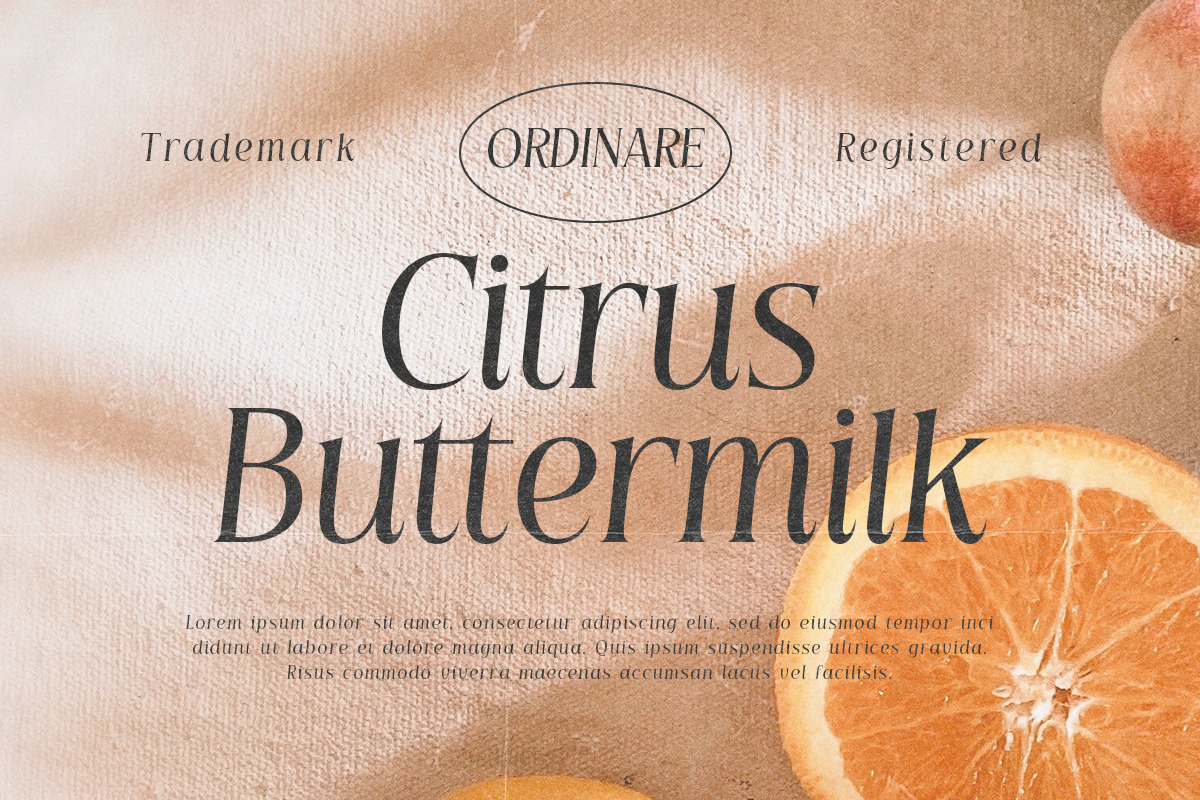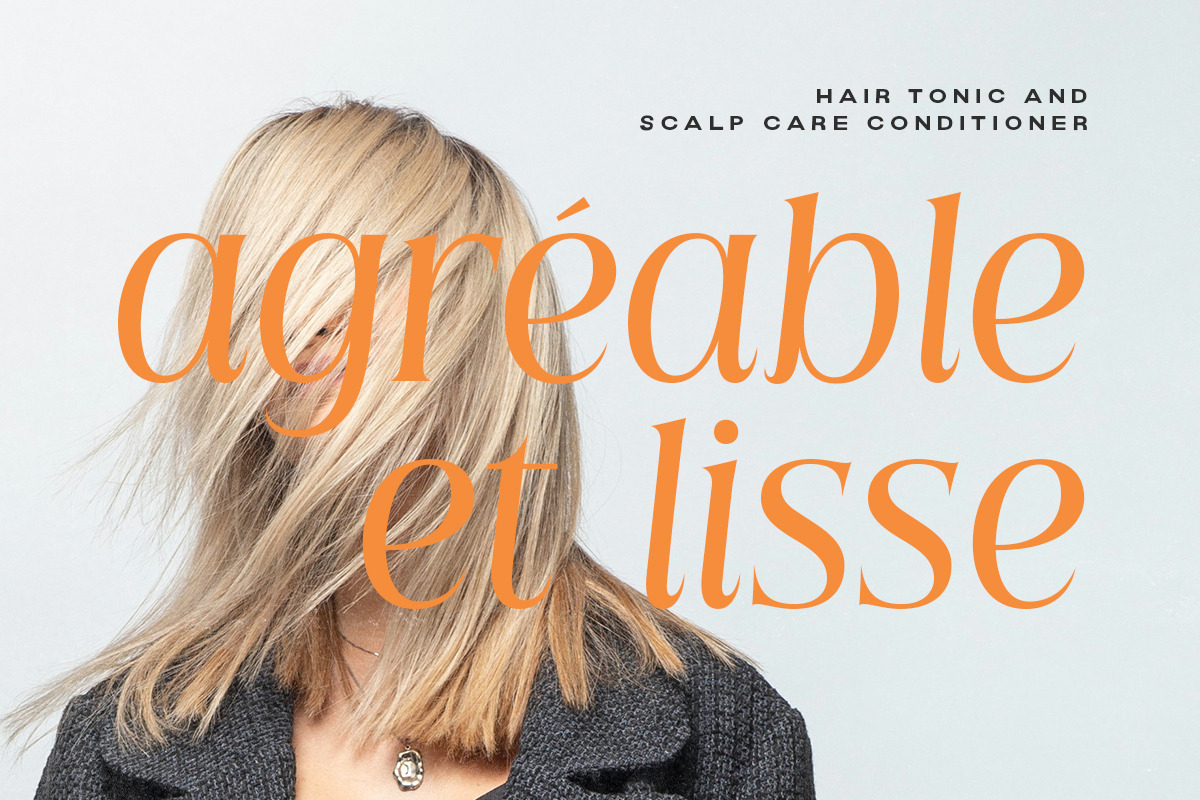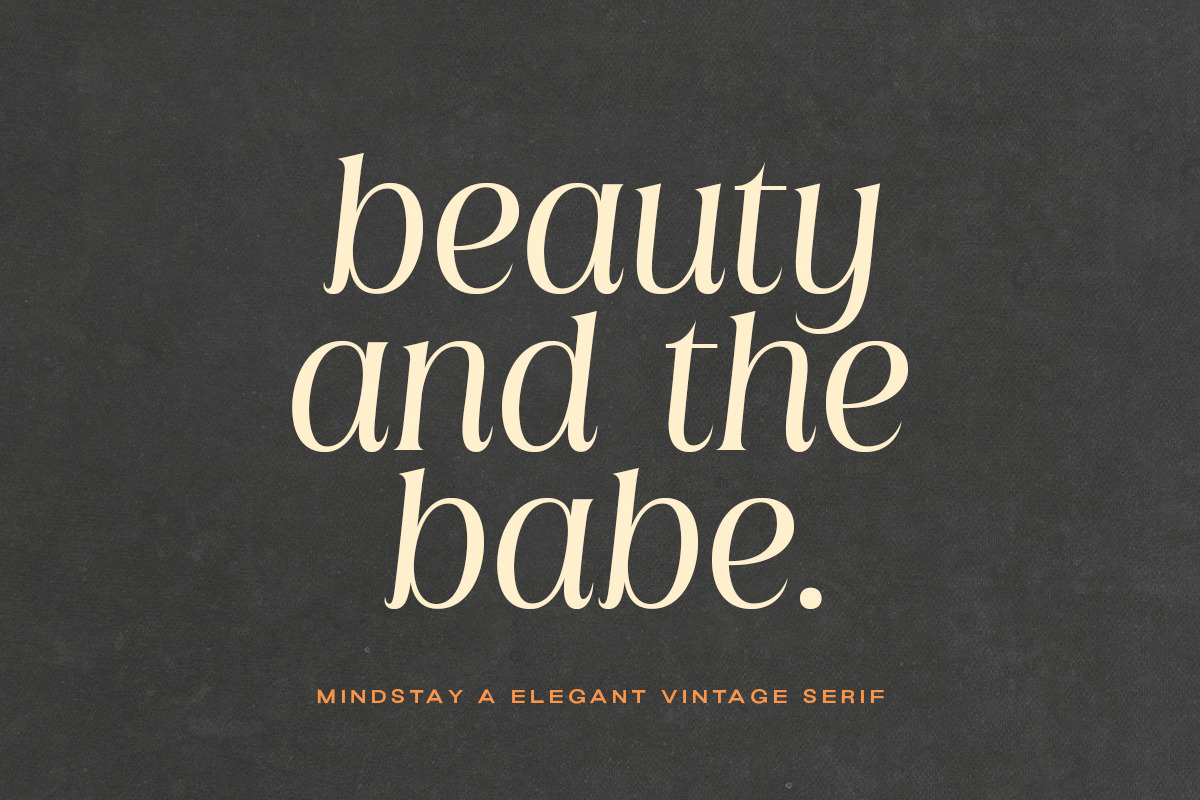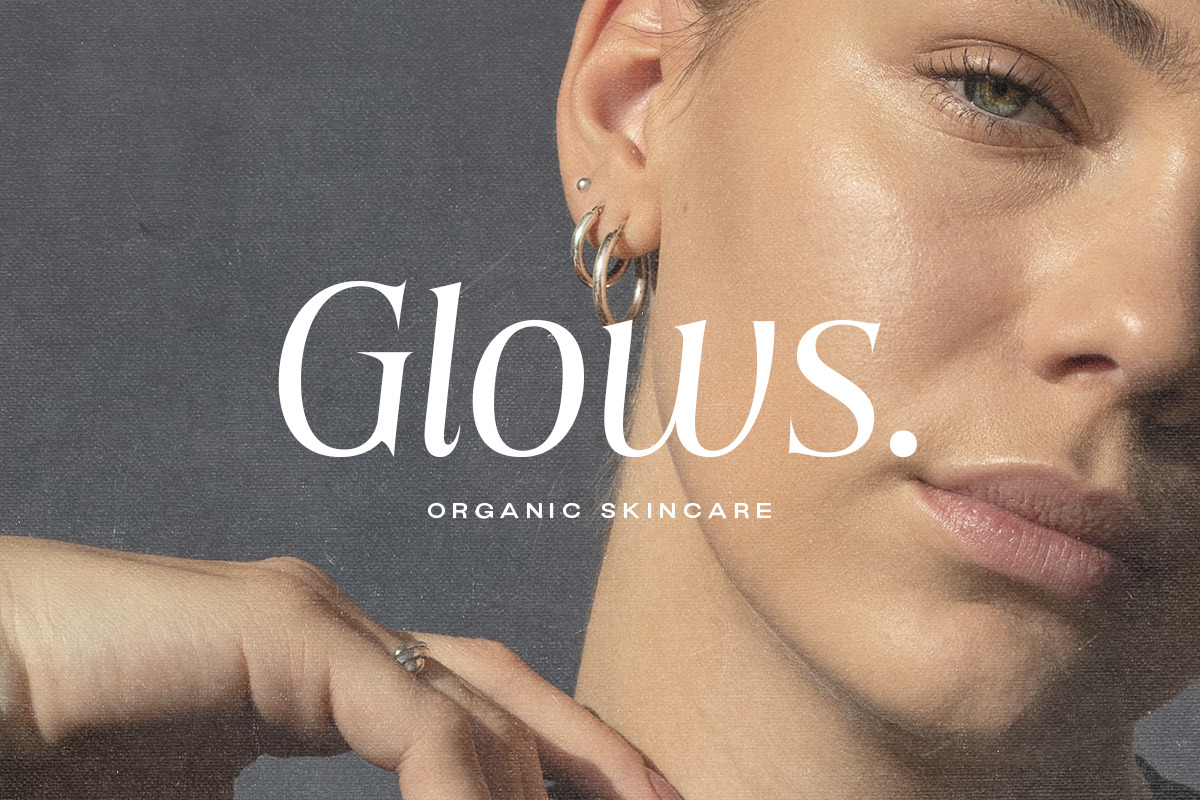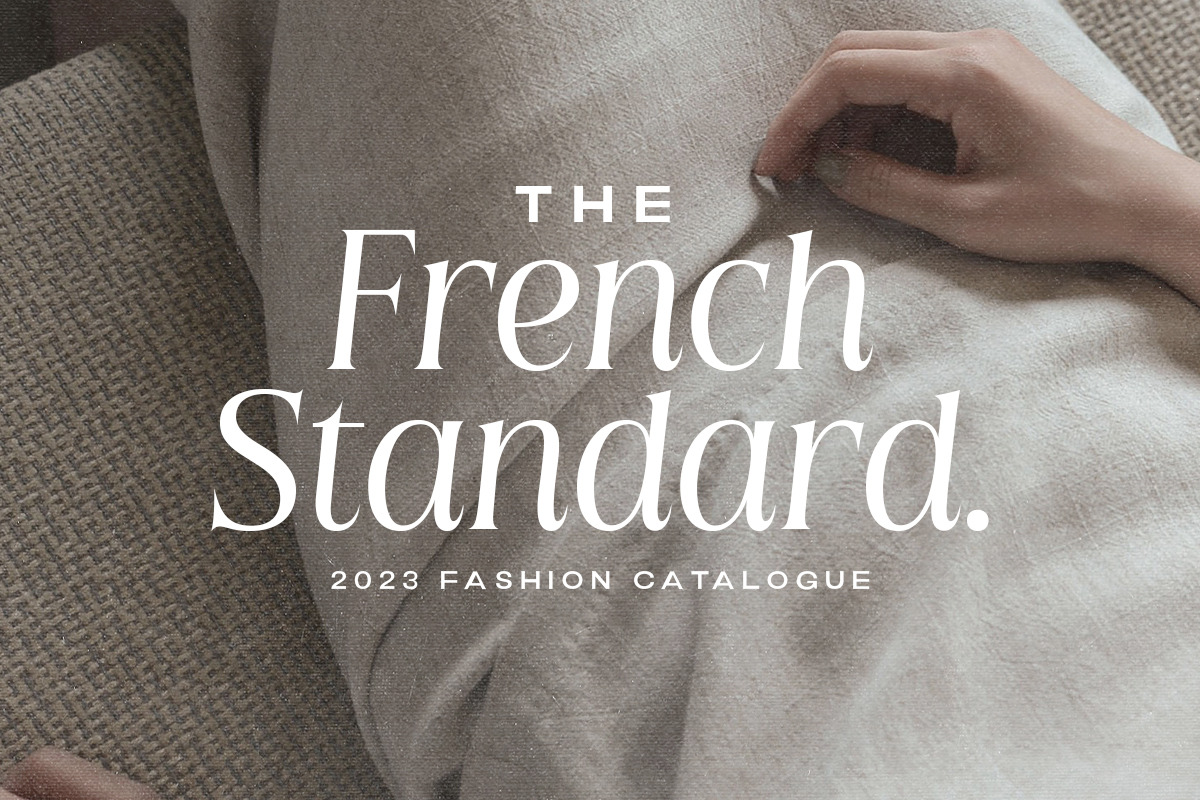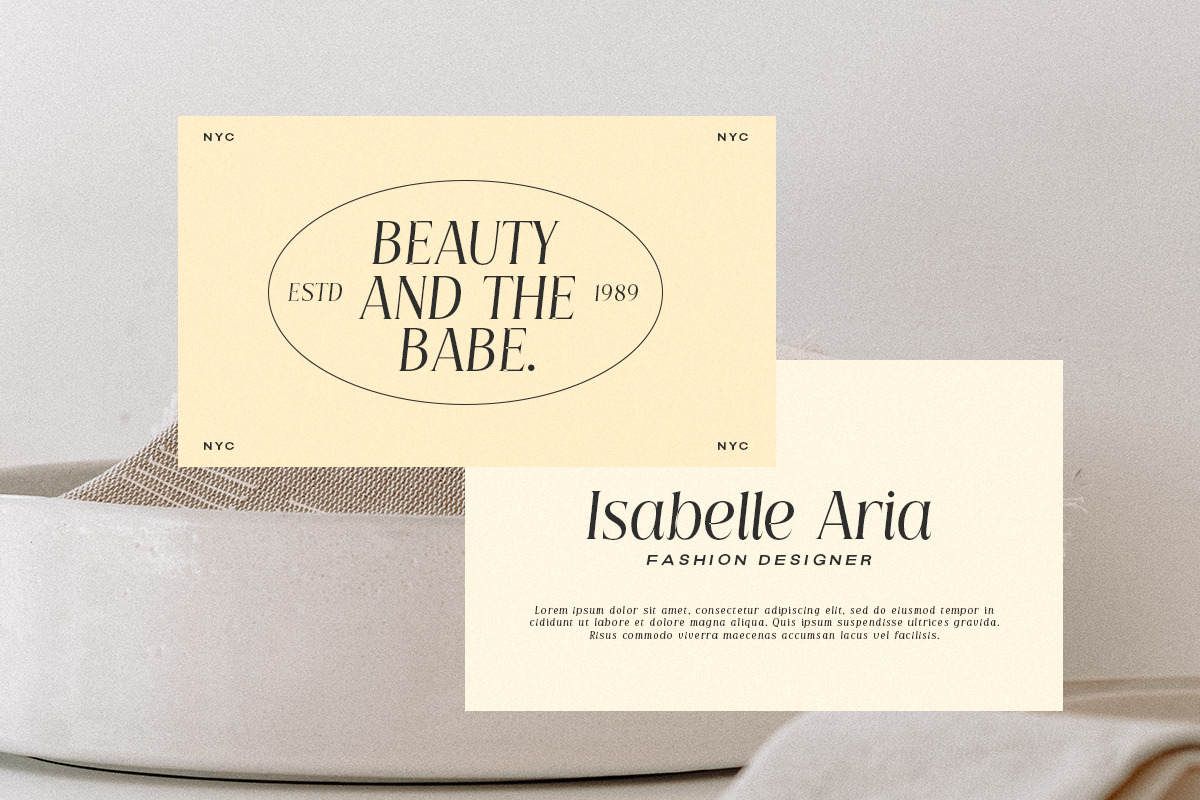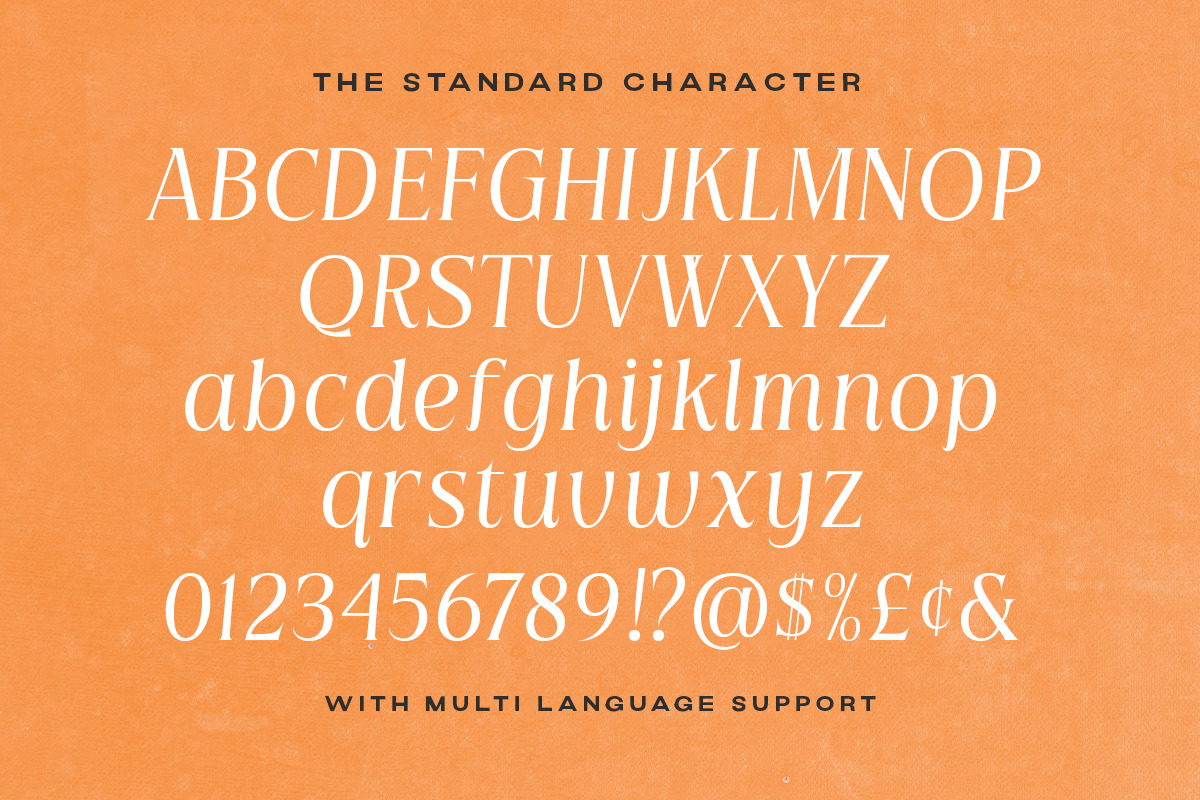
Mindstay - Elegant Vintage Serif
Presenting Mindstay, a elegant vintage serif font that exudes timeless charm and elegance. Its clean lines and meticulous attention to detail embody the essence of classic typography, making it a chic serif font.
- Alternate Characters